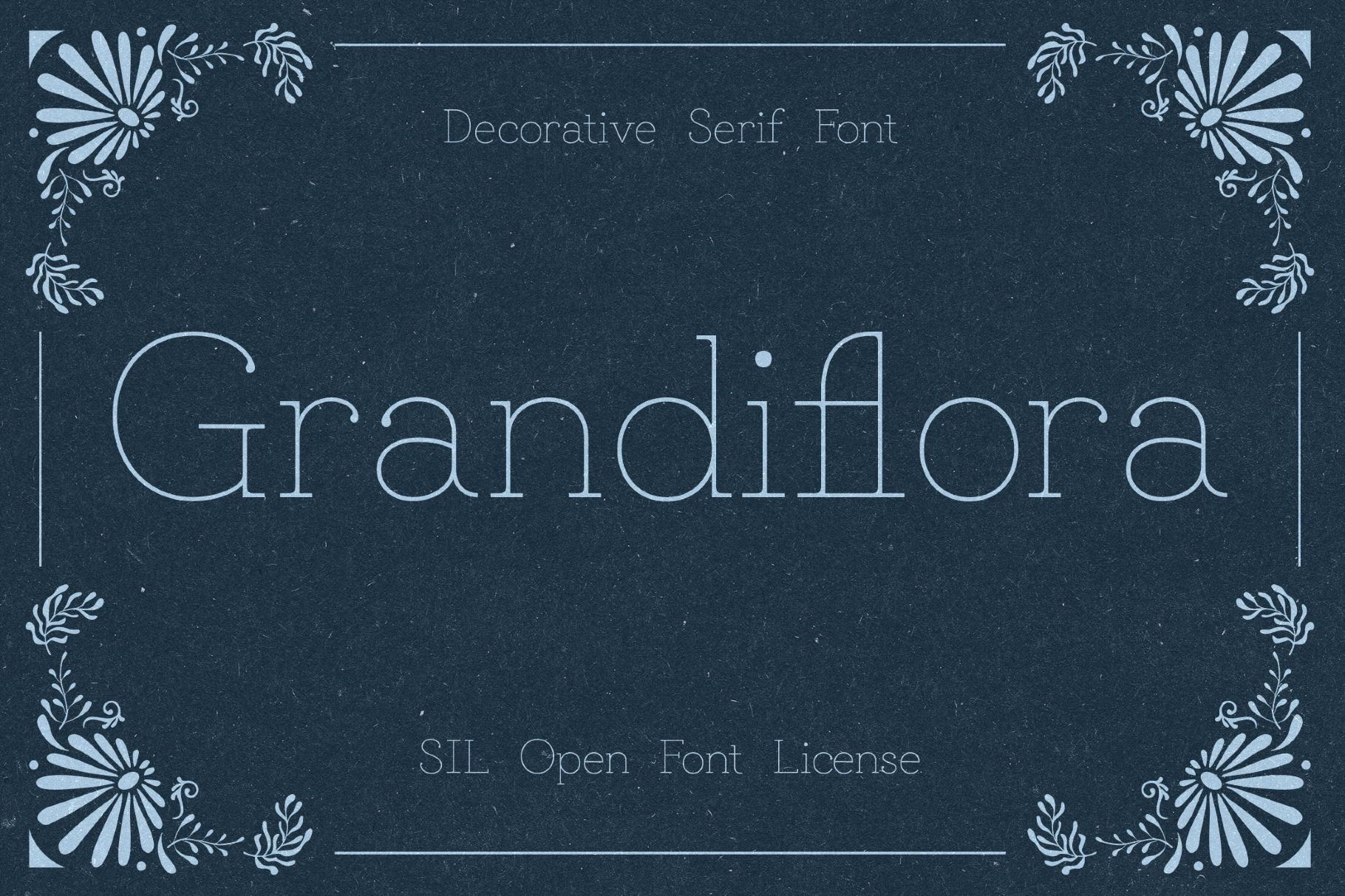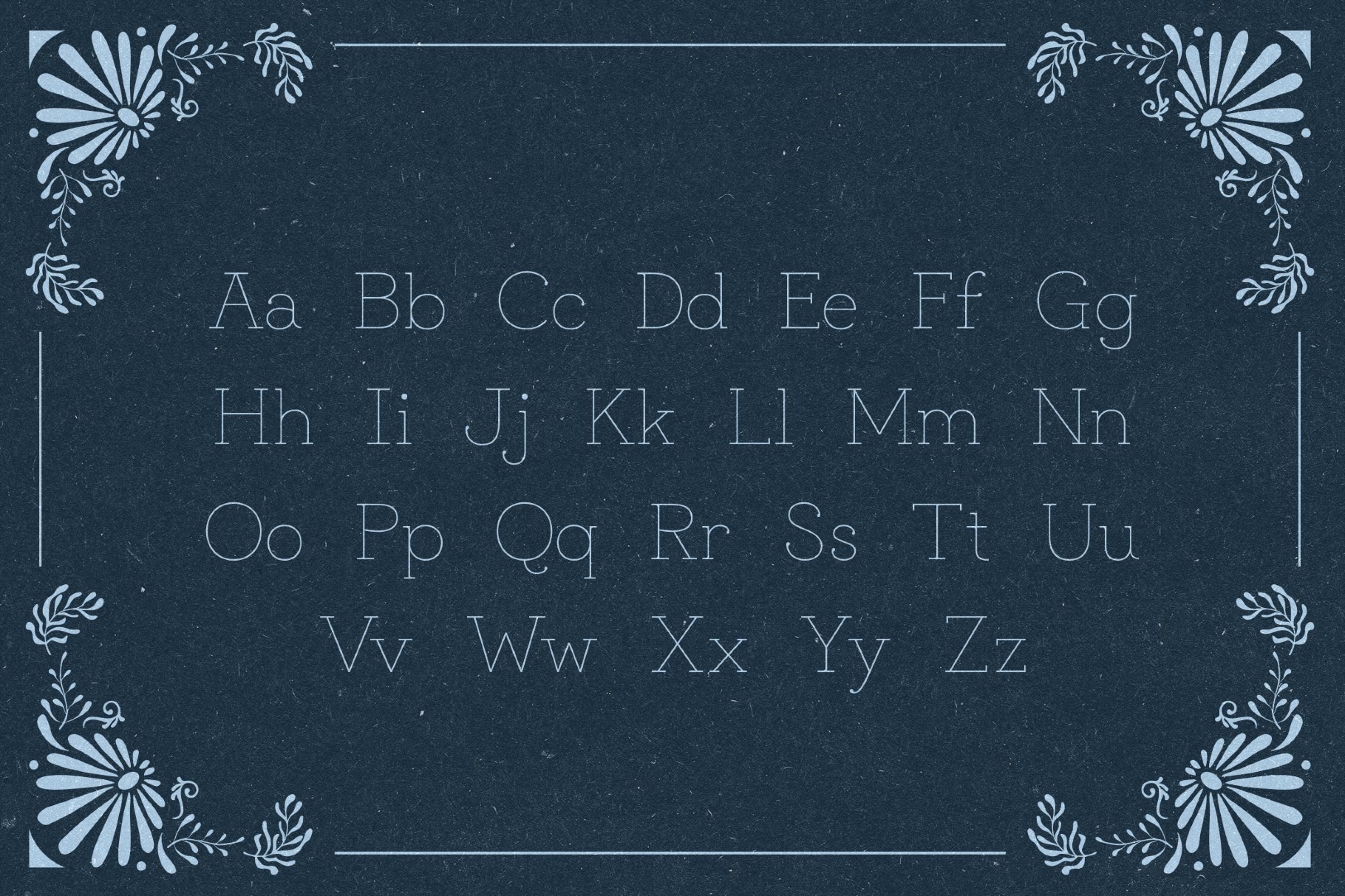
Grandiflora Elegant Serif
Grandiflora-Hairline
Grandiflora is a decorative serif in hairline weight, shaped by Art Nouveau ornament and the flowering curves of summer vines, with the grace of poster borders, bookplates, and fin-de-siècle illustration. This typeface works perfectly for cultural posters, editorial titles, packaging, exhibition graphics, book covers, invitation design and branding.